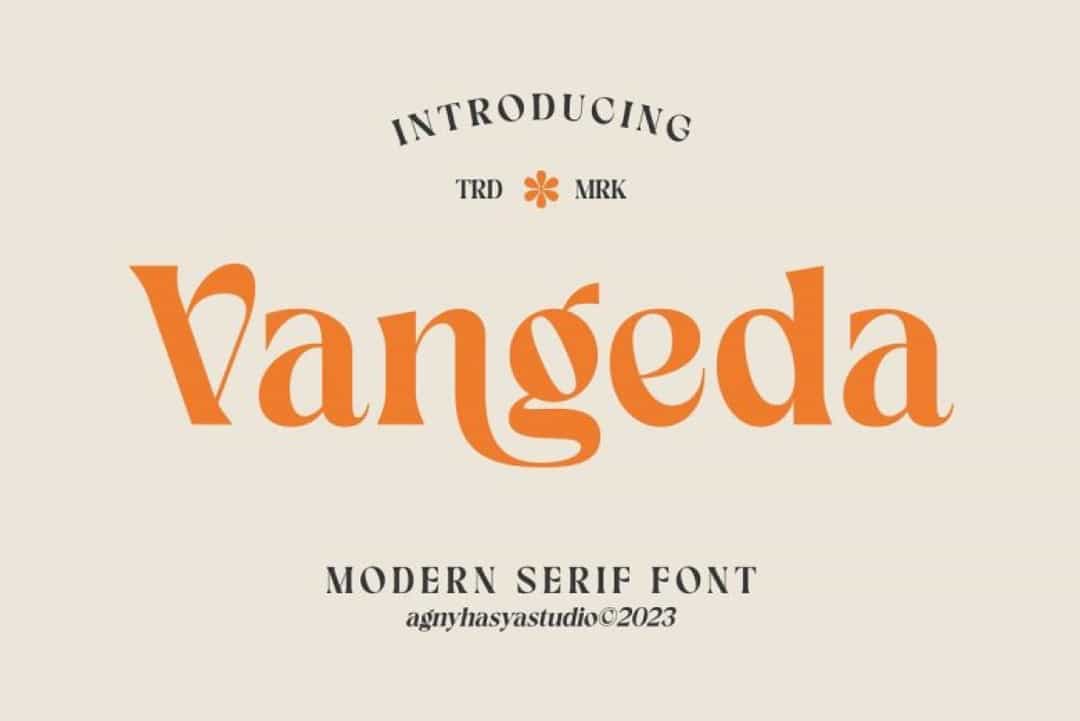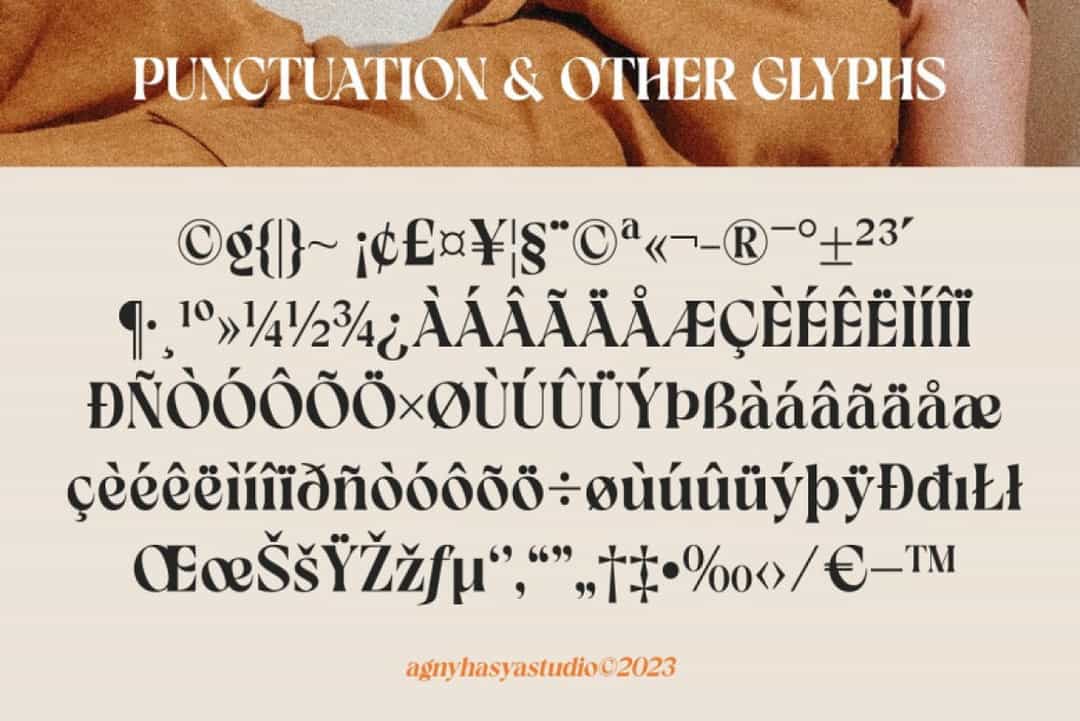
Vangeda can be described as an elegant and stylish Modern Serif font. Composed of two designs (regular and italic), as well as various glyphs like ligatures, alternates and more; you can mix and match these components to craft the ideal typographic design!